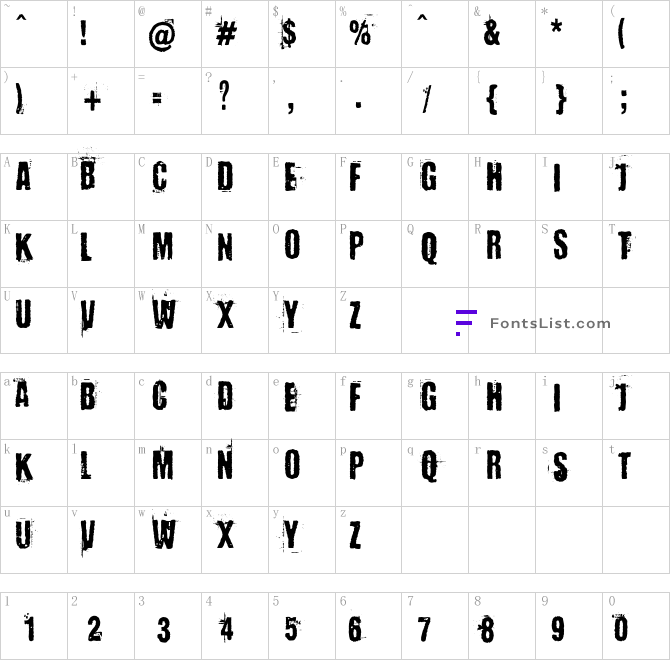
- Font Name:Baron Kuffner
BaronKuffner.otf is a very beautiful artistic font, BaronKuffner.otf is widely used in the design and printing of various books and pictures,BaronKuffner.otf has a strong visual impact,BaronKuffner.otf is a commonly used font in newspapers, magazines and books, and is used in posters, e-commerce Poster design, store design, logo design, font design and other fields.BaronKuffner.